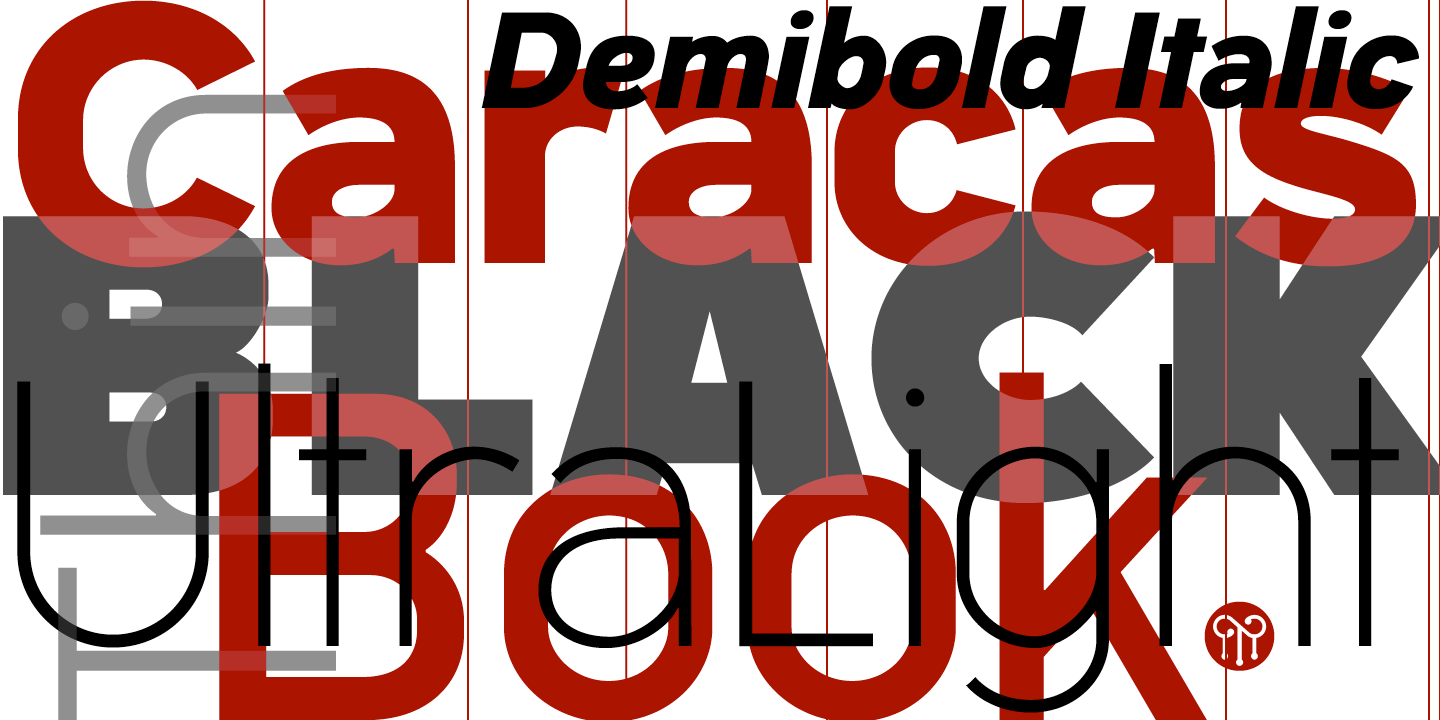
Caracas Font is perfect for vibrant Latin American restaurant branding, authentic Venezuelan cultural center signage, colorful tropical festival promotions, passionate salsa dance studio marketing, energetic South American tourism campaigns, lively Caribbean music venue graphics, dynamic Latin music album covers, spirited cultural celebration materials, vibrant street art gallery exhibitions, and passionate Latin lifestyle brand identities. Its spirited Latin character makes it ideal for projects requiring Latin American energy and Venezuelan cultural authenticity.
What makes Caracas Font exciting is its passionate embodiment of Latin American spirit and Venezuelan cultural vibrancy with energetic letterforms and tropical characteristics that capture the essence of South American passion and Caribbean rhythm excellence. The font features dynamic proportions, Latin-inspired details, and spirited character construction that create authentic tropical atmosphere and Latin appeal. Its vibrant personality brings energy and cultural warmth to contemporary designs while maintaining the clarity essential for cultural communications and Latin presentations. The carefully crafted passionate elements ensure cultural authenticity while preserving the distinctive character that embodies the essence of Latin American heritage and Venezuelan excellence.
Caracas Font comes in multiple vibrant variations including Light, Regular, Medium, Bold, and Tropical styles. Each family member maintains the distinctive Latin character while offering comprehensive flexibility for South American typography and Venezuelan cultural brand system development. The complete font family includes alternate characters, Latin symbols, and tropical decorative elements that provide extensive tools for creating immersive Latin design experiences and authentic South American brand storytelling.
Whether you're developing Latin American brands, Venezuelan cultural projects, or tropical entertainment ventures, Caracas Font Free Download provides the passionate energy needed to communicate with Latin culture enthusiasts and South American communities who appreciate Venezuelan heritage and Latin American spirit. The font's vibrant appeal resonates with Latin professionals, cultural educators, and tropical lifestyle enthusiasts seeking authentic Venezuelan credibility and Latin sophistication. Its comprehensive character set includes Latin symbols and cultural marks, making it perfect for creating complete South American brand systems and memorable Latin storytelling across diverse cultural applications and passion-focused design projects that celebrate Venezuelan culture and Latin American excellence.